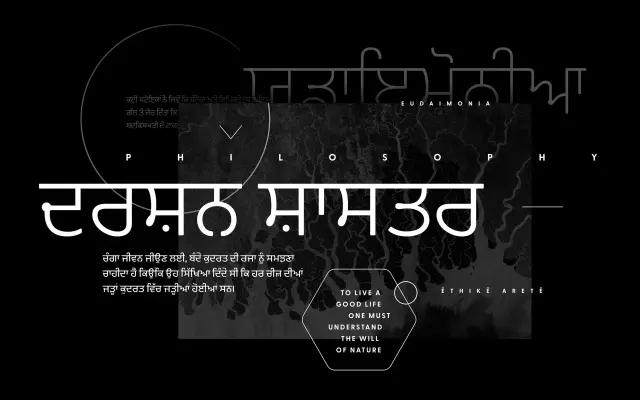
Greycliff Gurmukhi CF
A geometric sans covering both Gurmukhi and Latin scripts across nine weights, designed for visually consistent multi-script typography in Panjabi and a broad range of Latin languages.
Built on a near-monoline geometric construction with softened edges, the family pairs Latin letterforms with a full Gurmukhi character set including diacritics and subscript letters for Panjabi language support. Nine weights from Thin to Heavy give it range across text and display applications. Latin language coverage spans over two dozen languages including Croatian, Turkish and Filipino.
Near-monoline construction with geometric forms and softened terminals places this squarely in the geometric sans category, covering both Latin and Gurmukhi scripts.